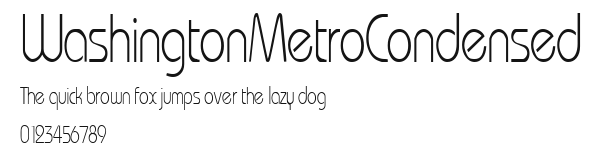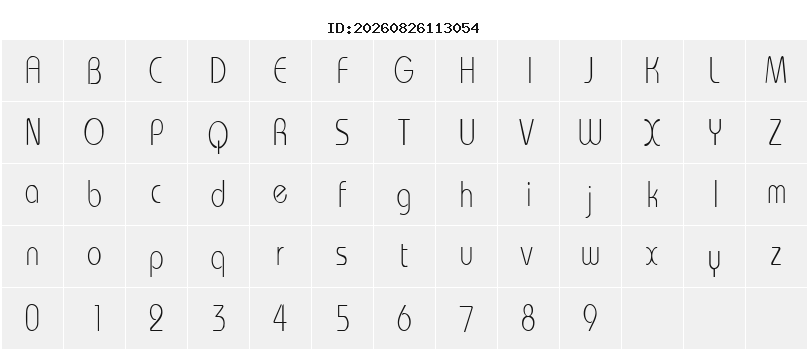
WashingtonMetroCondensed Preview
• Font Name: WashingtonMetroCondensed
• Font ID: SWFTE:WashingtonMetroCondensed Regular
• Full Font Name: WashingtonMetroCondensed
• Version: Rev. 003.000
• PostScript Name: WashingtonMetroCondensedRegularSWFTE
• Character Count: 119
About WashingtonMetroCondensed.ttf
WashingtonMetroCondensed.ttf is a modern, elegant sans-serif font designed for ultimate readability and visual harmony. Perfect for branding, headlines, web design, and print materials.